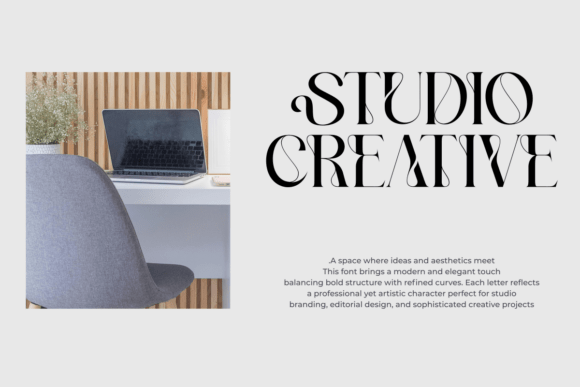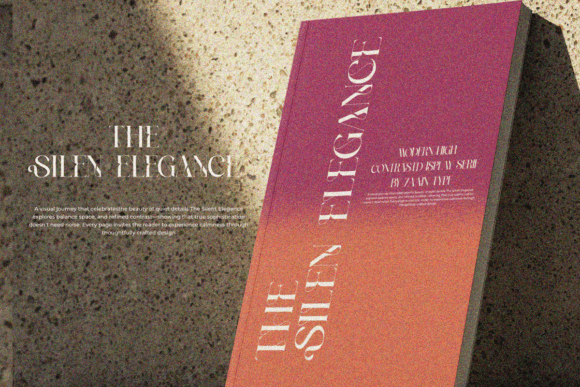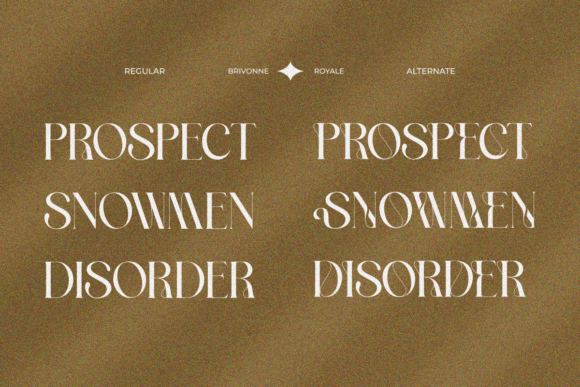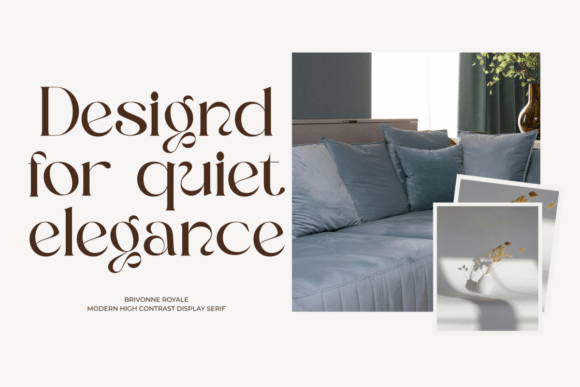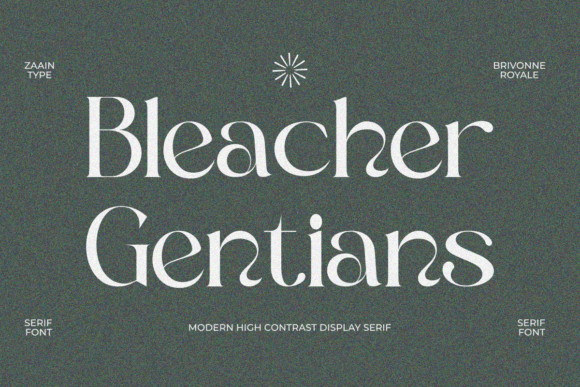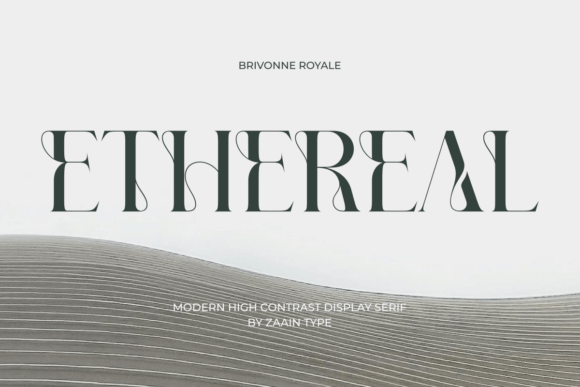
Introduction to Brivonne Royale Font
Brivonne Royale is a modern serif font that blends graceful curves with elegant high contrast.
Designed to convey luxury and authority, each letterform combines classic aesthetics with a subtle contemporary touch With refined serif details, balanced proportions, and shapes that feel bold yet sophisticated, Brivonne Royale is perfect for high-end branding, fashion magazines, premium editorials, exclusive product packaging, and headline designs that demand an elevated presence.
Key Features of Brivonne Royale Font
Why Choose Brivonne Royale Font?